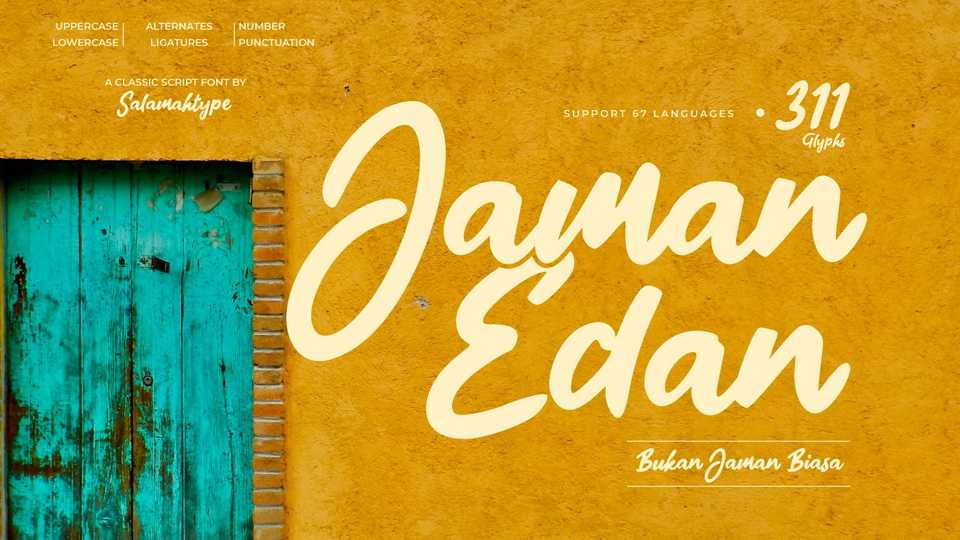
Download Jaman Edan font, a script typeface that comes with classic retro style. Coupled with alternates and swashes this font is more unique, perfect for anyone who likes vintage style like this.